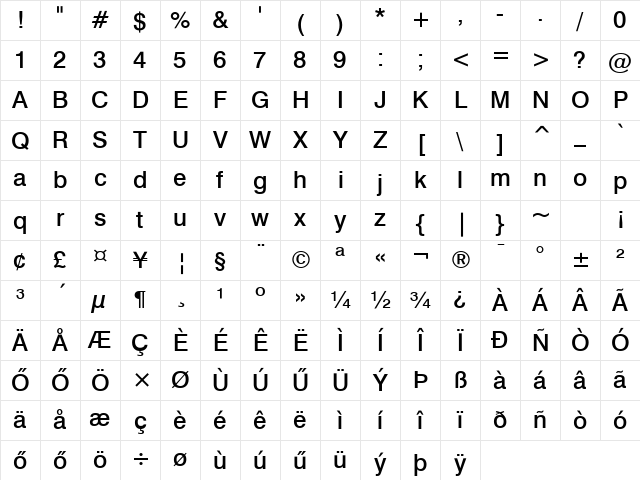
Swiss-721Medium HU Normal
Design Context for Swiss-721Medium HU
Swiss-721Medium HU is a composed and adaptable typeface that performs quietly and consistently across a wide range of design contexts.